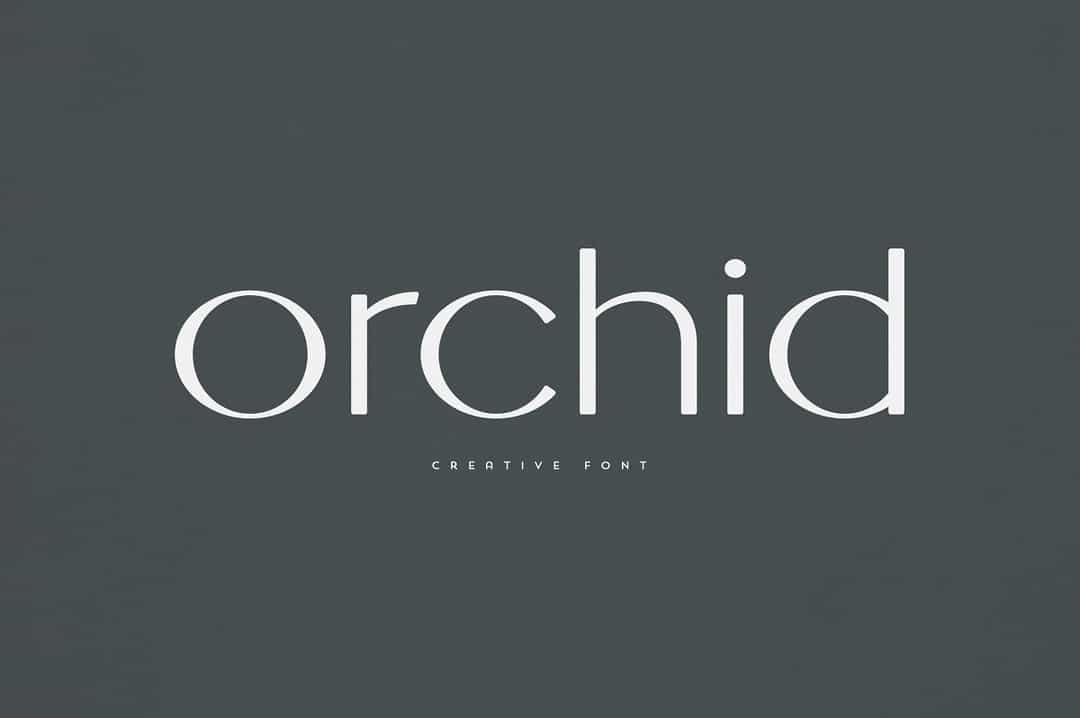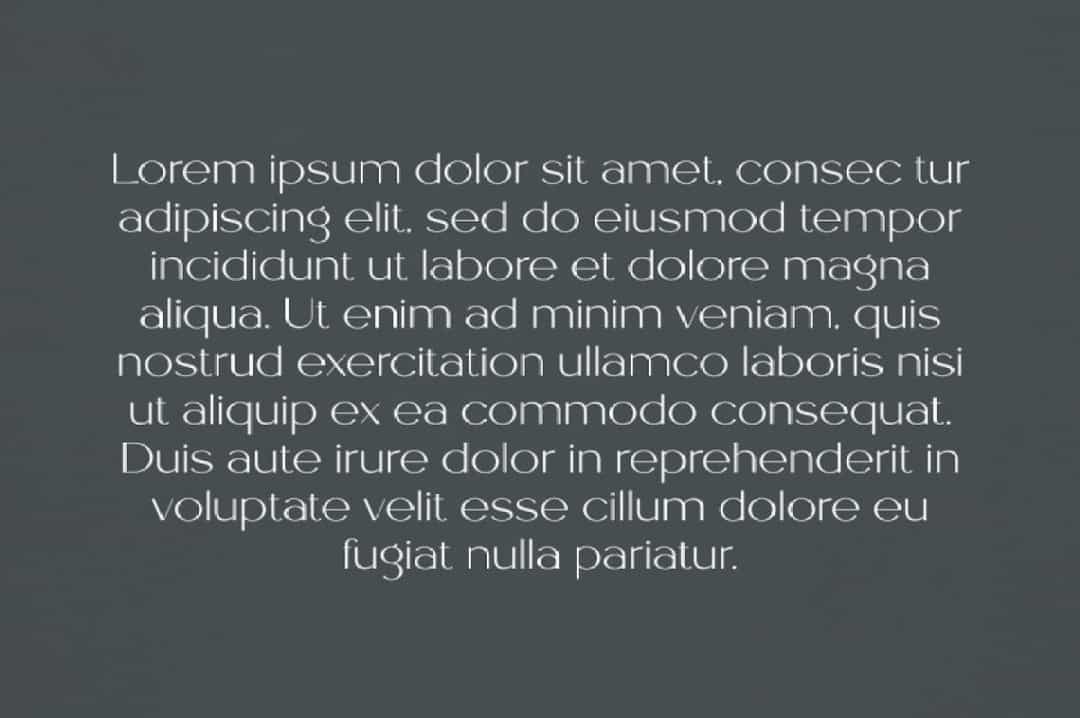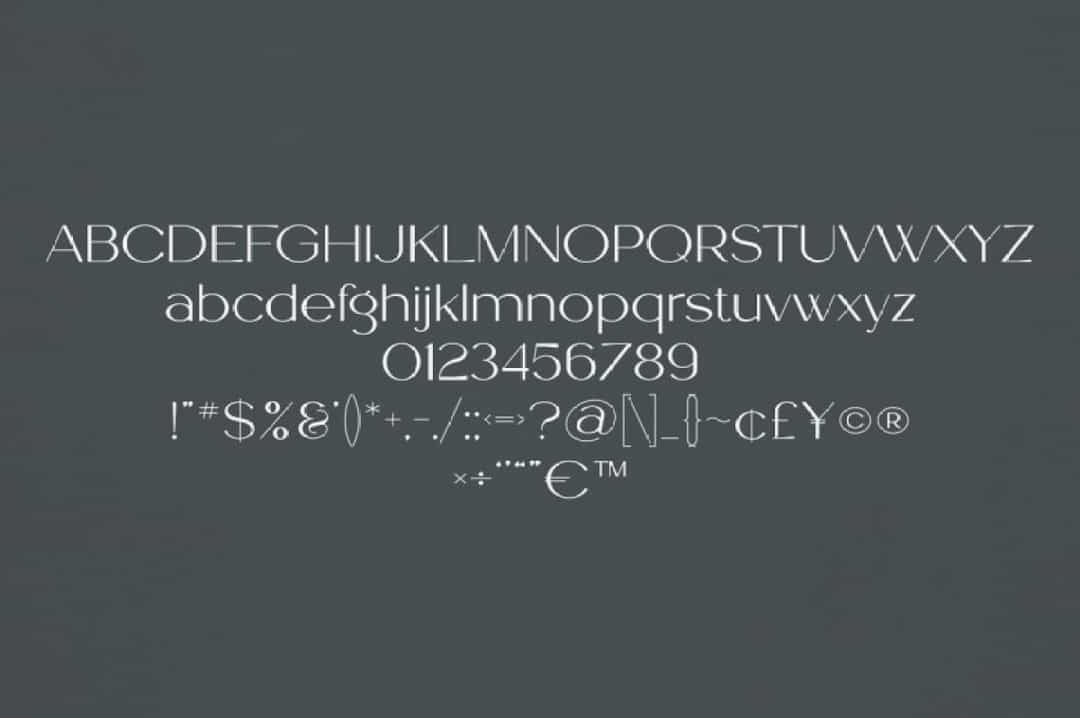
Orchid is an elegant and versatile sans serif font designed to produce an unforgettable typographic style! Perfect for headlines, logos, branding or simply plain text; Orchid will bring its unique charm and distinctive typographical style to any headline, logo design or simple text!